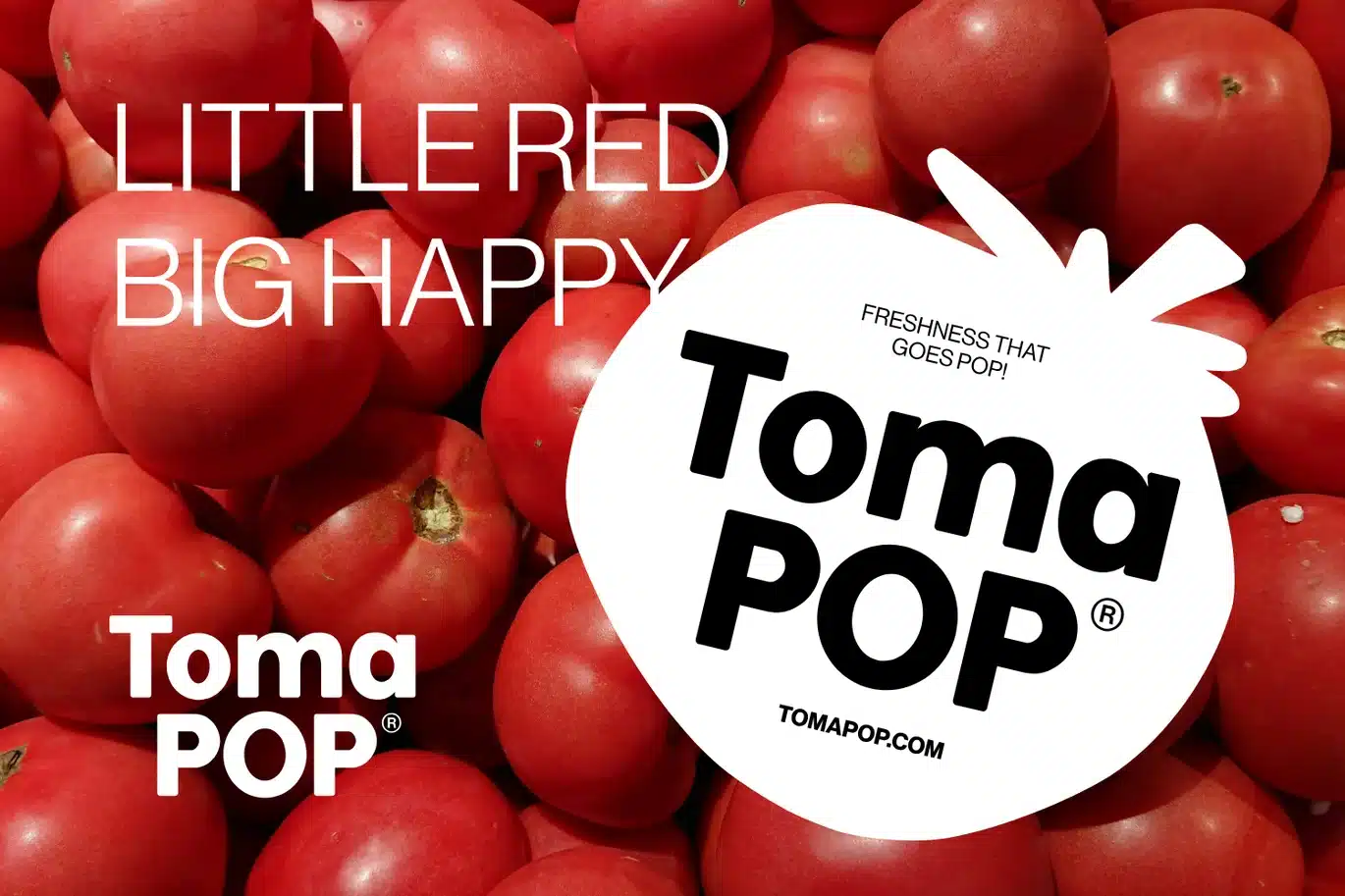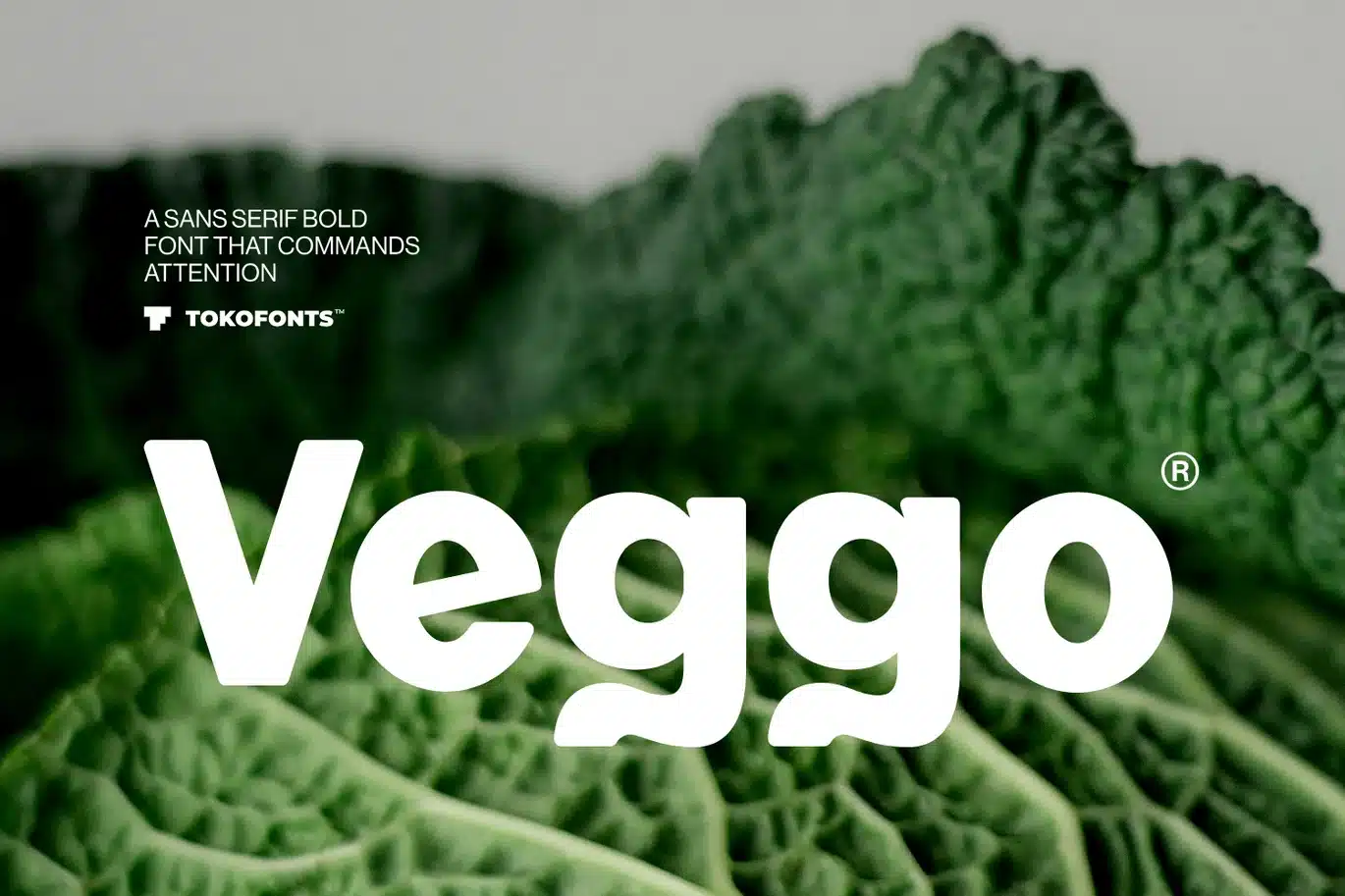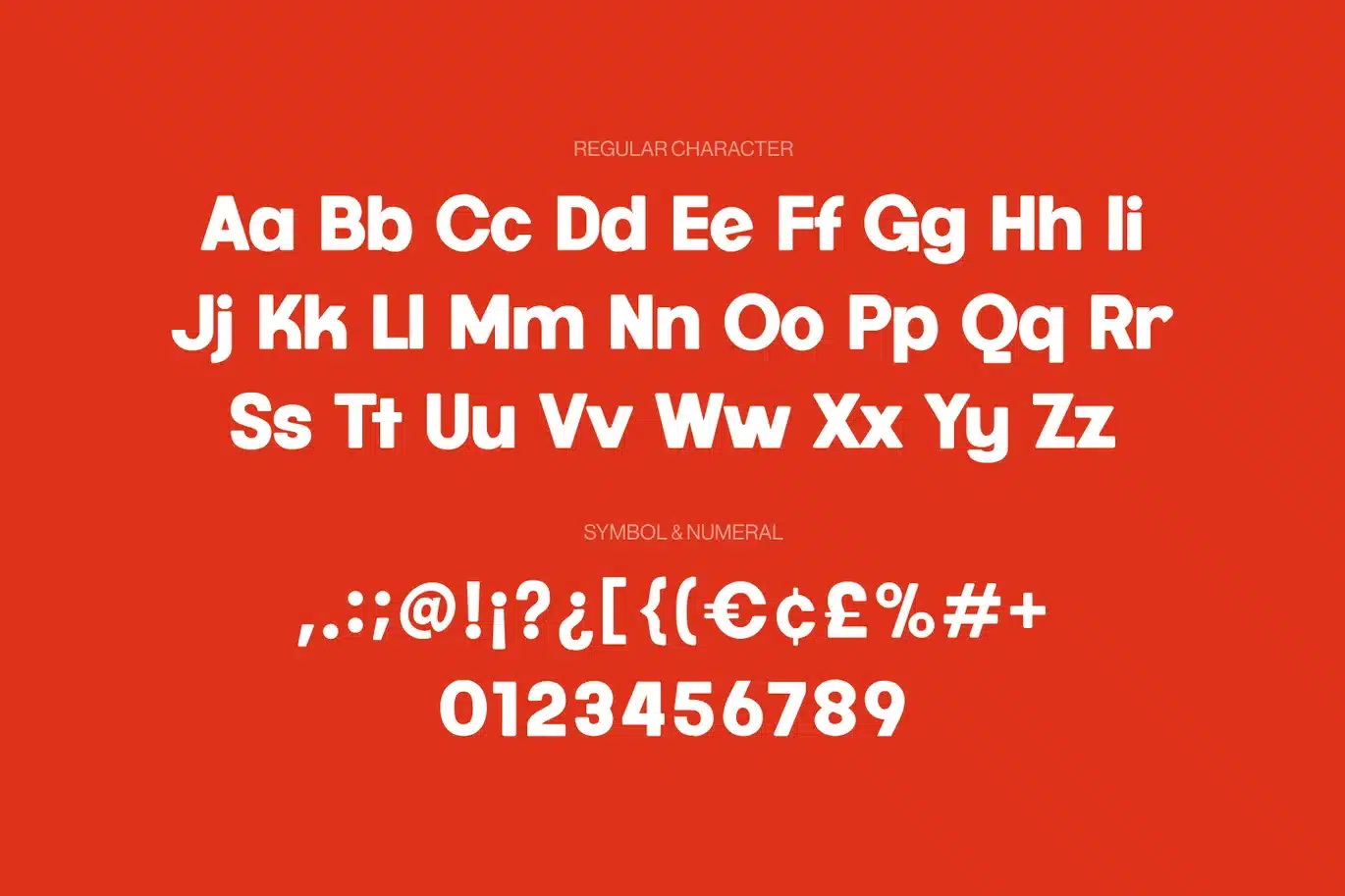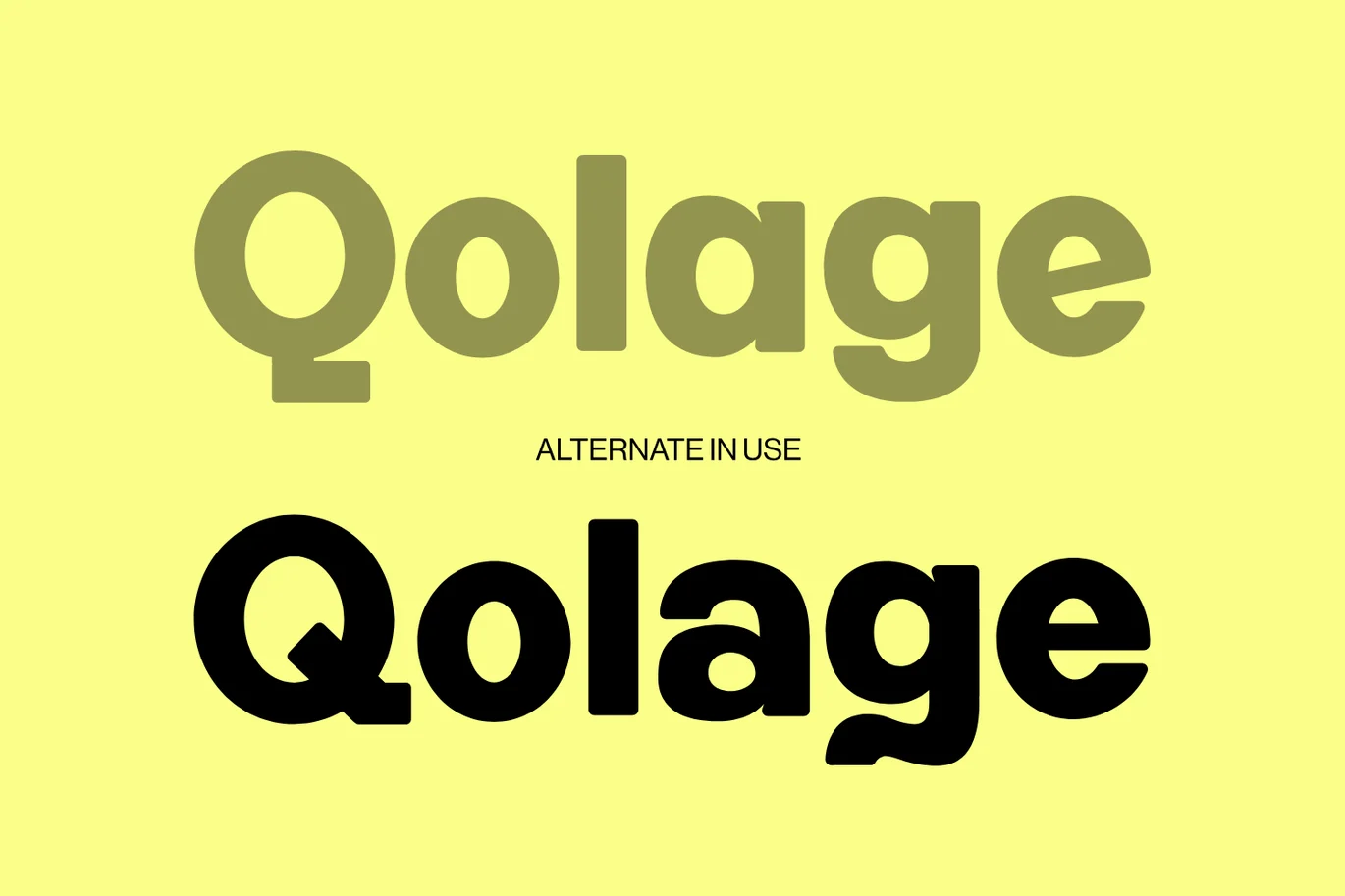
Helzy – Food Font
Helzy font is a playful and modern typeface crafted to bring warmth and flavor into every food brand. Designed with smooth curves and friendly shapes, it fits perfectly for food logo projects across coffee shops, bakery products, cafe identities, and restaurant branding. Whether you’re designing for a burger joint, candy packaging, or a pizza place, Helzy delivers a delicious visual tone that feels both inviting and memorable.
With its soft yet bold character, Helzy font works beautifully on Menu designs, ice cream labels, chocolate packaging, and anything related to cooking or kitchen themes. It helps elevate your brand presence with a sweet, approachable style that instantly connects with customers. From artisan cafe concepts to vibrant food campaigns, Helzy is the perfect choice to give your brand a tasteful and modern identity.